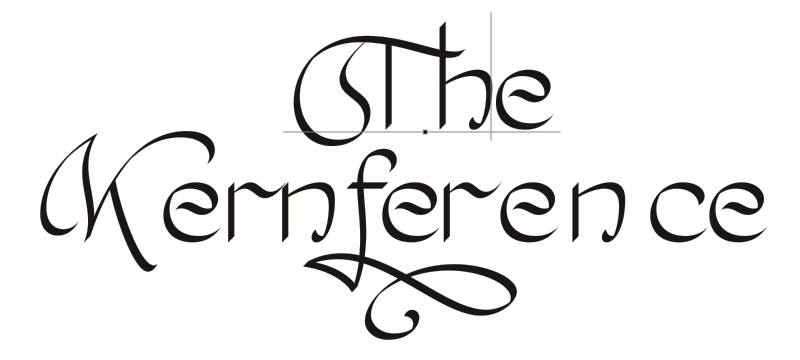
Ready to learn hand lettering? We’ve gathered all our favorite resources to get you started in the world of typography today, from courses by our favorite lettering artists to the best apps, events, and books! Let’s jump in…
Courses on Hand Lettering
There are a TON of amazing online courses to get you started with hand lettering. We run a community of over 1.1 million typography lovers, so you can trust that we’re tapped in to the best of the best. Here are some of the top type, lettering, and calligraphy classes taught by some truly talented instructors…
tip top type
Tip Top Type is an e-course designed to transform your lettering from good to great. Full-time lettering artist and Tip Top Type teacher, @KatieMadeThat, has rounded up her top tips, tricks, and perspectives on lettering that can give your skills a HUGE boost. These are some of the most important things Katie has learned as a letterer—conveniently distilled into one digestible course.
Hand Lettering Essentials for Beginners
Our friend, the seriously talented Mary Kate McDevitt teaches the basics of lettering on Skillshare.
Lovely & Legible Lettering
In this online course, powerhouse lettering artist and designer Lauren Hom shares her entire lettering process, all the way from pencil sketch to inked drawing to digital editing, with an emphasis on legibility.
Hand Lettering 101: Design a Quote
Molly Jacques will teach you about the basic art supplies for hand lettering, the fundamentals of drawing letterforms, how to find inspiration and sketch out your project concept layouts, and how to take your pencil drawings and turn them into finalized ink artwork.
SHOW ME YOUR DRILLS
Show Me Your Drills is a FREE course that will take you step-by-step through the basics of calligraphy with Becca from The Happy Ever Crafter.
A Comprehensive Guide to Hand Lettering: Creating Graphic and Script Styles
Join acclaimed designer Erik Marinvoch to learn a step-by-step process for crafting graphic, hand-lettered envelopes—and tons of lettering basics along the way!
Calligraphy Essentials: From First Script to Final Flourish
Perfect for beginners and professionals alike, Seb Lester will teach you to create perfect italic letterforms with a broad nib pen, and finish the class with an elegant and polished piece of writing you can truly call your own.
Dreaming in Script: Calligraphy Course
Learn traditional calligraphy with David Grimes.
Hand Lettering Styles and Techniques for Embellishment
How do letterforms work? How do you add embellishments like script styles and drop shadows? Learn techniques to take your lettering to the next level in Adobe Illustrator with Spencer Charles.
Elegant Monogram Lettering
Join lettering artist Kelly Thorn to design a monogram marrying the tactile, imperfect look of handiwork with the polish and refinement of a digital illustration!
The Happy Ever Crafter Youtube Channel
On The Happy Ever Crafter’s channel, you'll find step-by-step modern calligraphy & lettering tutorials, interviews with other amazing artists & more!
Illustrated Lettering: Drawing Intricate Floral Forms
You'll create an intricate, illustrated letterform with Gemma O’Brien’s unique creative method: using real flowers for inspiration, sketching large letterforms, collaging digital imagery, and sketching and inking details for an incredible final effect.
The Ultimate Calligraphy Course
A step-by-step online course to help you master calligraphy with clarity so that you can create the work you envision with ease, confidence and success. It includes everything from Copperplate basics, minuscules and majuscules, flourishing, modern calligraphy, ligatures, digitization and more, taking you from clueless to confident!
Vintage-Inspired Lettering: Design Bold Geometric Type in Adobe Illustrator
Travel back to the roaring 20’s with designer and letterer Nick Misani! You’ll join Nick in the studio for an inviting, accessible course in Art Deco typography that combines the best of old and new to create a bold, unexpected style that’s truly timeless.
Lettering for Designers: One Drop Cap Letterform at a Time
Jessica Hische teaches how to create beautiful letters and alphabets by starting with the simplest possible project: making a single letter!
Illustrated Lettering: Design a Book Cover
Join lettering and illustration icon Jessica Hische for a stunning, in-depth class all about creating lettered book covers in Procreate!
Hand Lettering with Texture: Creating Analog, Dimensional Type
Join lettering artist Jeff Rogers as he creates a dimensional, lettered piece from sketch to painted sign.
Apps & Tools for Hand Lettering
Here are the best apps and tools to get if you want to start hand lettering today.
ipad or ipad pro
If you’re wanting to get into digital lettering, which is the most versatile way to create your art, we suggest investing in an iPad or iPad Pro. If you can spring for the bigger screen size, it’s really worth it!
Events & Conferences for Hand Lettering Artists
Here are some great events where you can meet other like-minded creatives, learn from heavy hitters in the field, and stay up to date with the latest goings-on in type.
THE kernference
The Kernference is Goodtype’s annual summit for the global typography and lettering community.
Crop
A conference for creatives, with keynote speakers, break outs, and after parties.
Typographics
Typographics is a conference for people who use type.